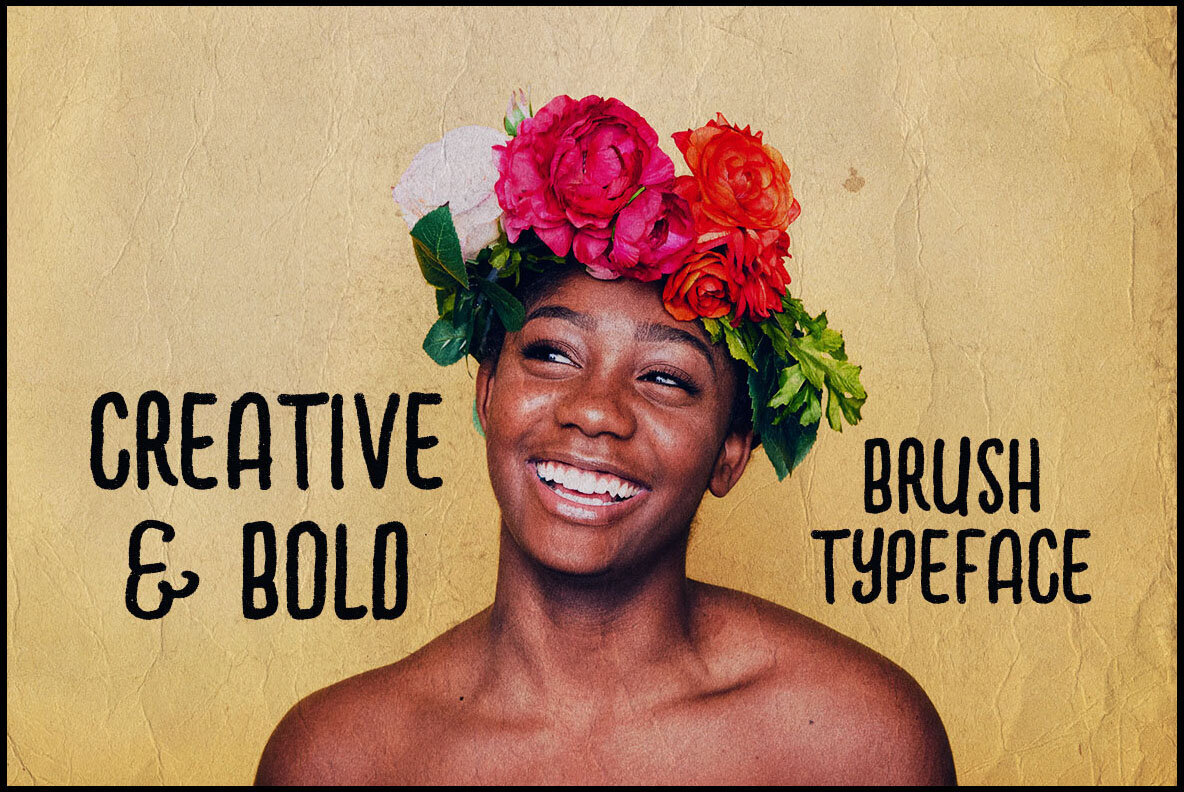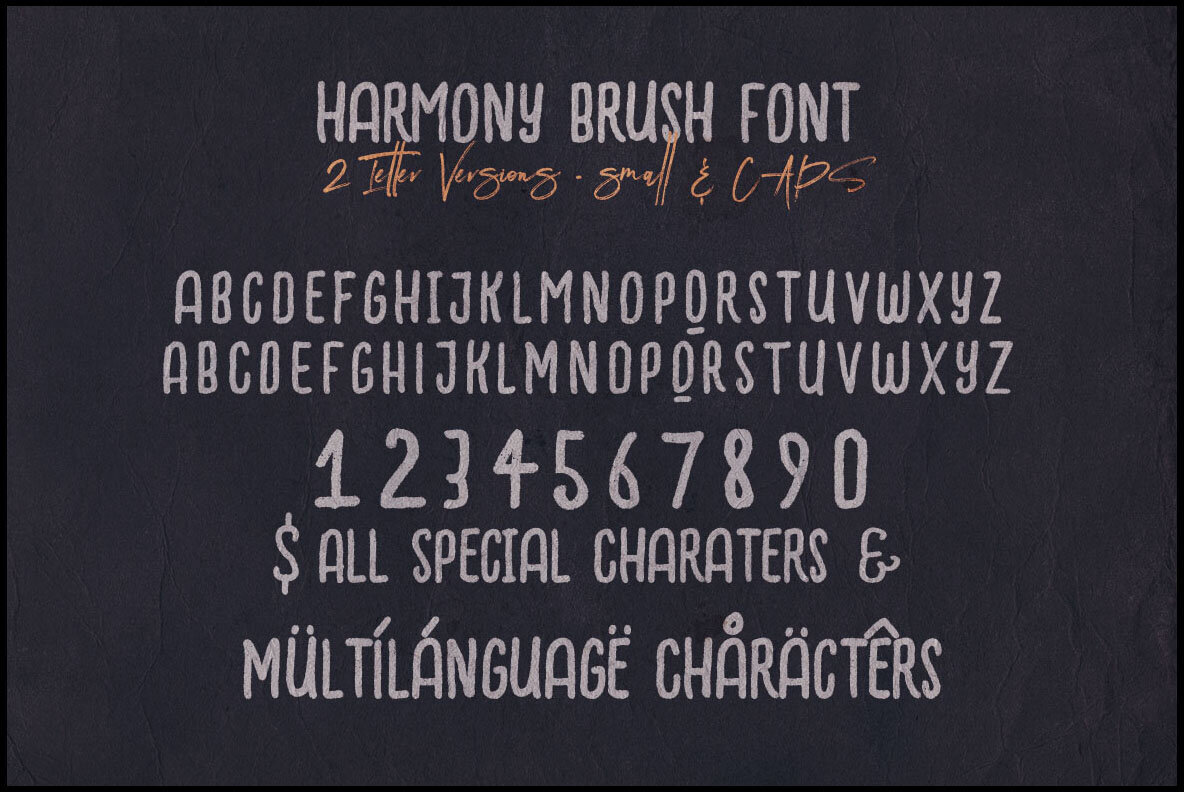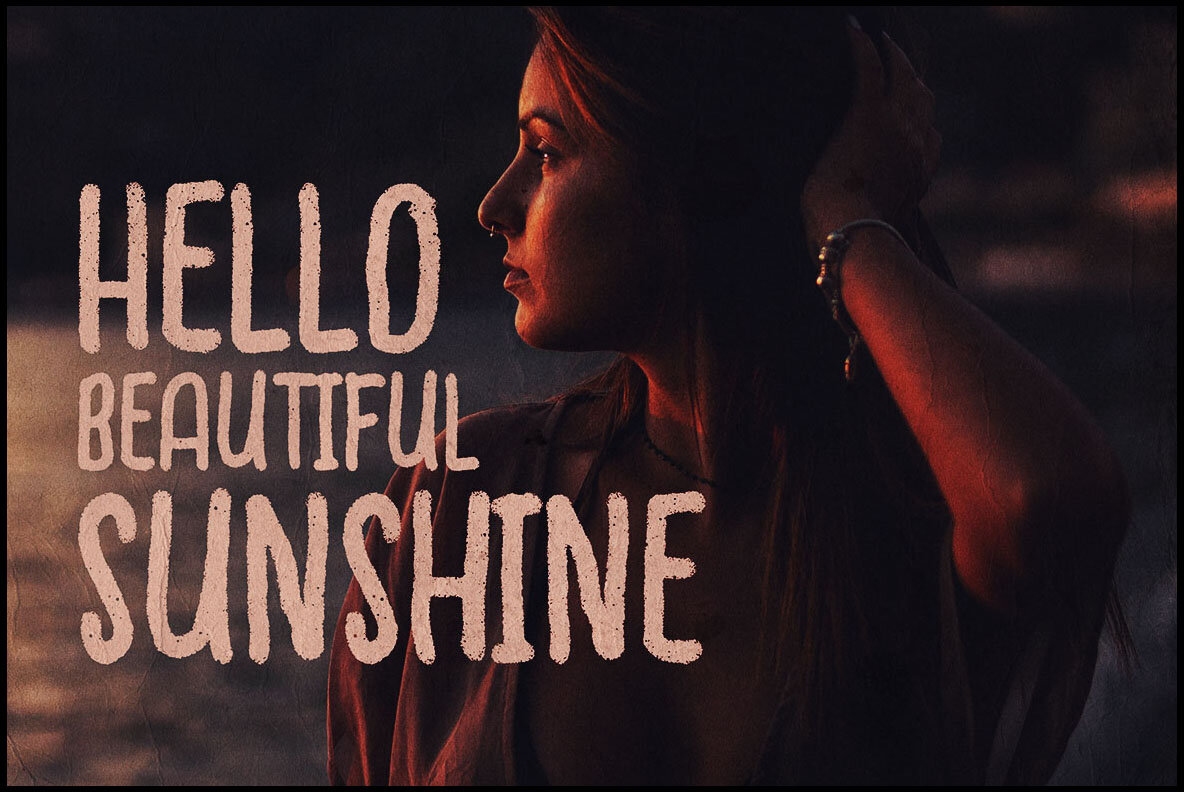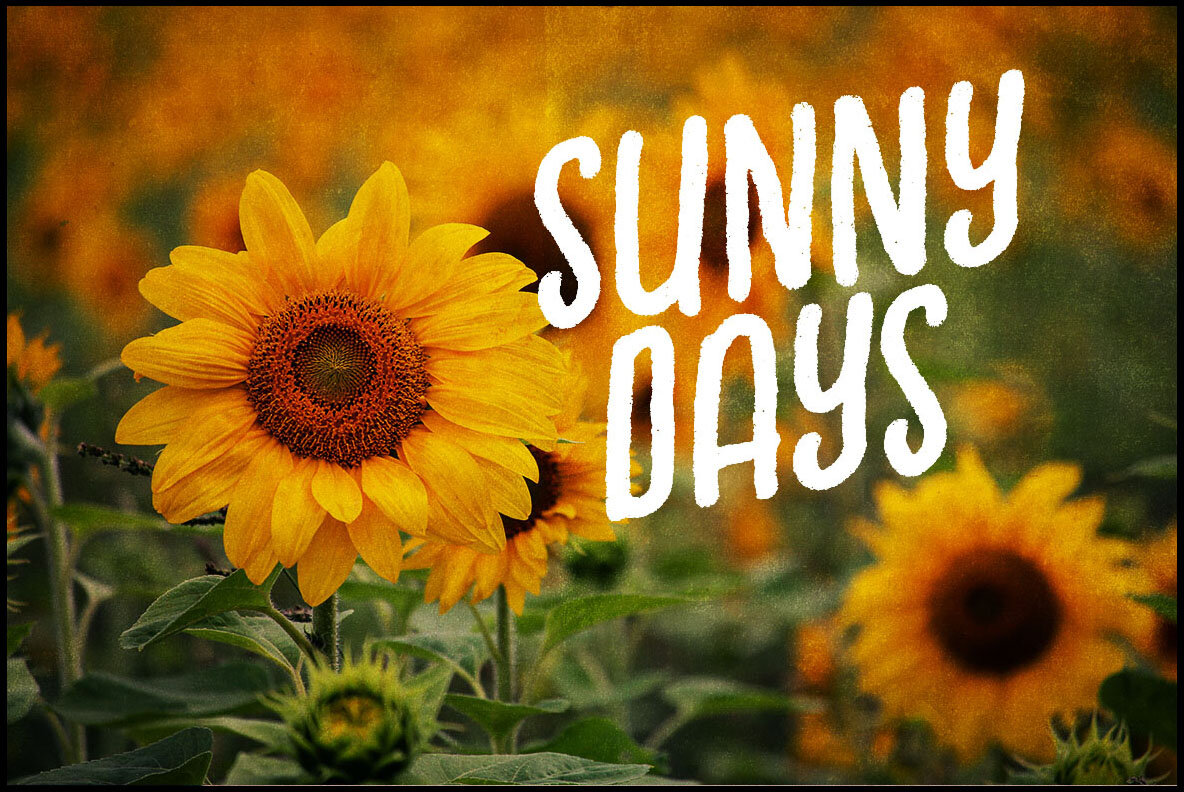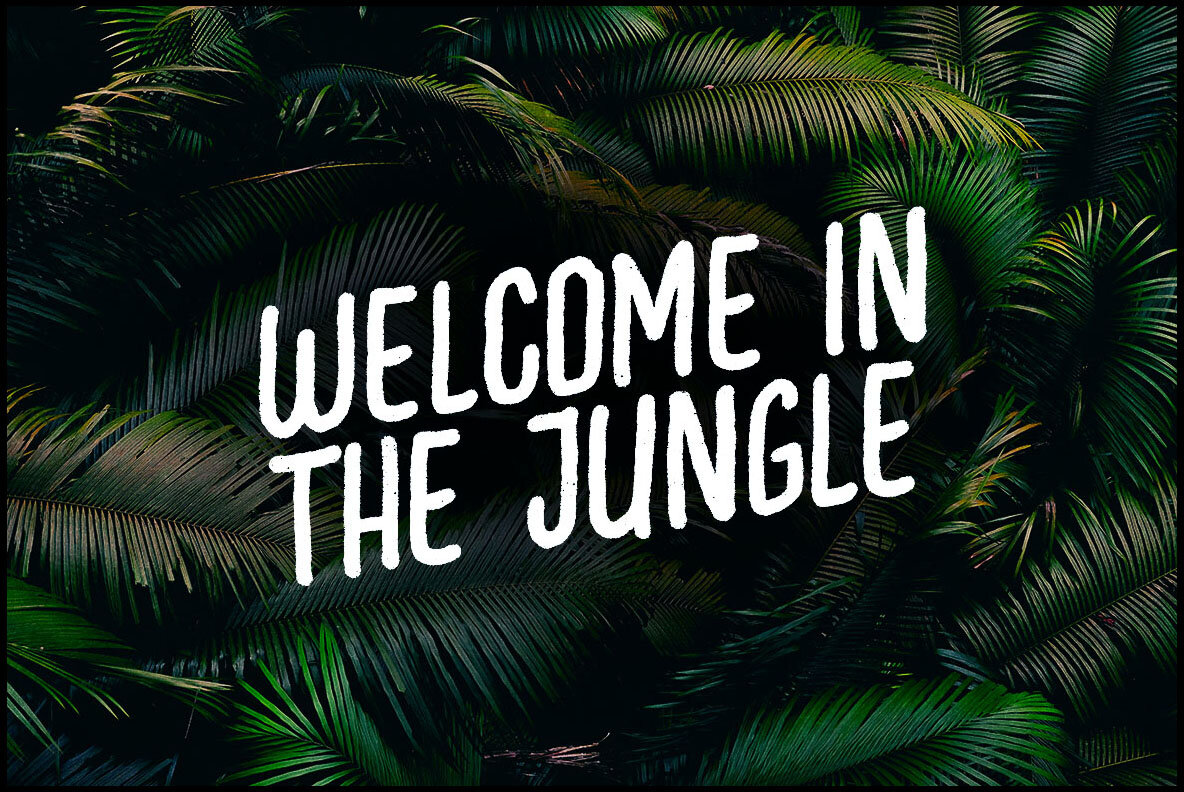
Harmony Font
Harmony Regular
Harmony by Peter Olexa offers a unique blend of grunge marker and condensed style, perfect for giving your projects an edgy and artistic flair. Whether you're working on urban, freestyle, or any creative designs, this font provides the robust yet stylish touch you need. If you need any assistance with Harmony, please feel free to reach out through my profile page. I'm happy to provide support for any inquiries or challenges you might face.Harmony Grunge: A Bold Sans Display Font